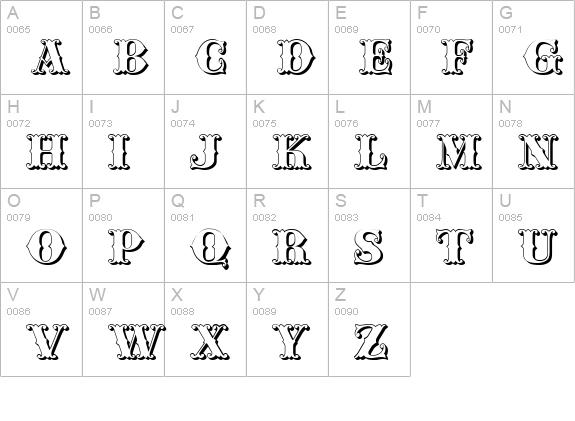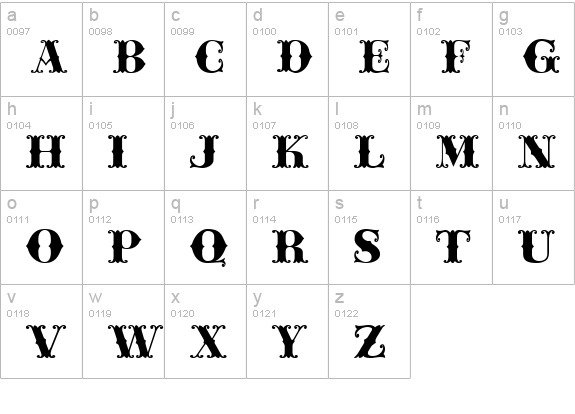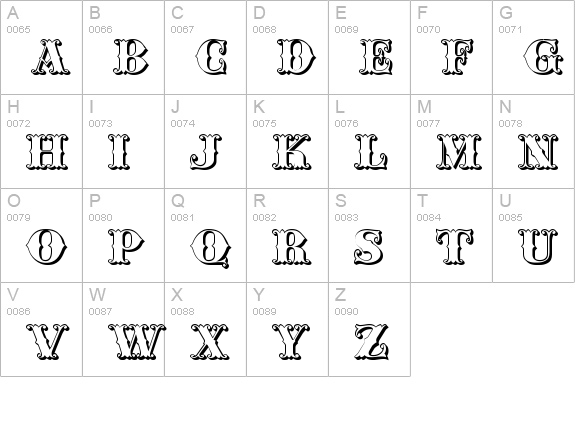
JFFerrule Font Details
Introducing JFFerrule, a stunningly elegant font that will elevate your designs to new heights. With its sleek and sophisticated lines, JFFerrule exudes a sense of modernity and professionalism that is perfect for any project. From logos to posters, websites to invitations, this font will add a touch of sophistication and class to your creations. JFFerrule is not only visually captivating, but it also boasts an extensive character set that includes uppercase and lowercase letters, numerals, punctuation marks, and special characters. This versatility ensures that you have all the tools you need to create truly unique and eye-catching designs. But what sets JFFerrule apart from other fonts is its accessibility. We believe that great design should be available to everyone, which is why JFFerrule is offered for free. Yes, you read that right! This remarkable font can be freely downloaded at FontsMarket.com, making it accessible to designers of all levels, from beginners to professionals. So why wait? Take your designs to the next level with JFFerrule. Download this exquisite font today and let your creativity soar. With JFFerrule, the possibilities are endless.